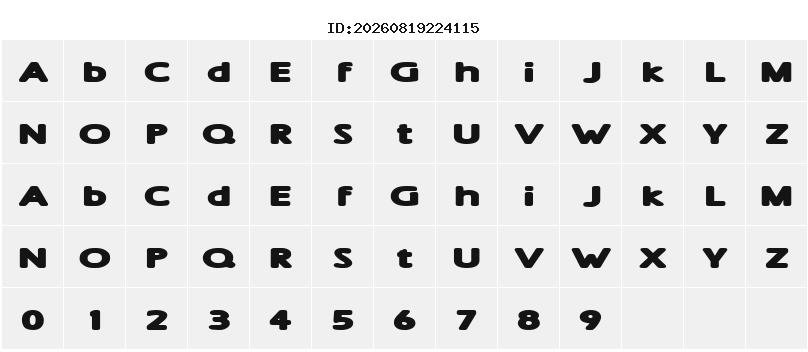
Sham Preview
• Font Name: Sham
• Font Style: ExtraBold
• Font ID: Sham Extra Bold
• Full Font Name: Sham Extra Bold
• Version: June 8 1996, Ray Larabie's "Sham" 1.0
• PostScript Name: Sham-ExtraBold
About Sham.ttf
Sham.ttf is a modern, elegant sans-serif font designed for ultimate readability and visual harmony. Perfect for branding, headlines, web design, and print materials.